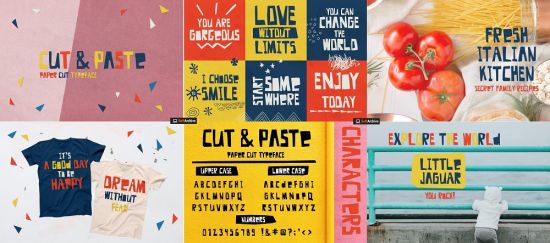
Cut and Paste is a bold cut out by hand and refined font. It will bring a strong Personality to your design projects. It is perfect for posters, greeting cards, apparel design, book covers, personalized logos, product packaging and more.